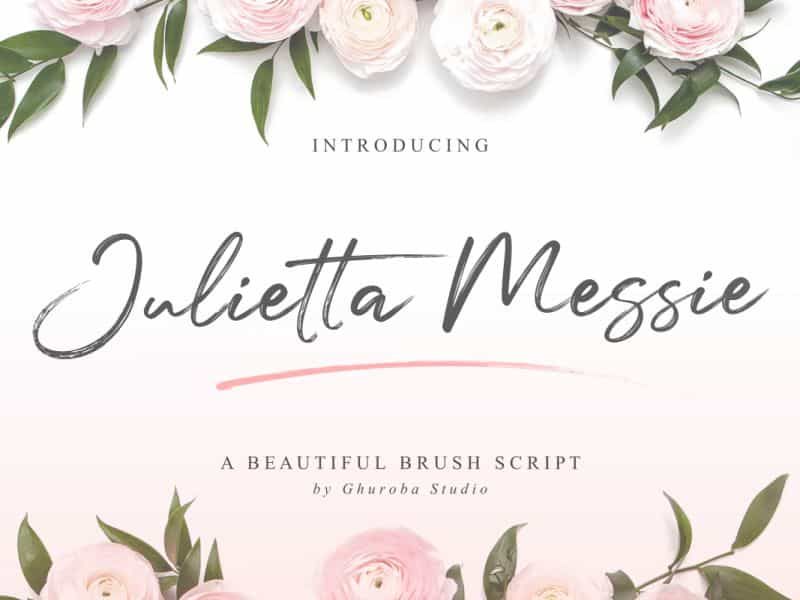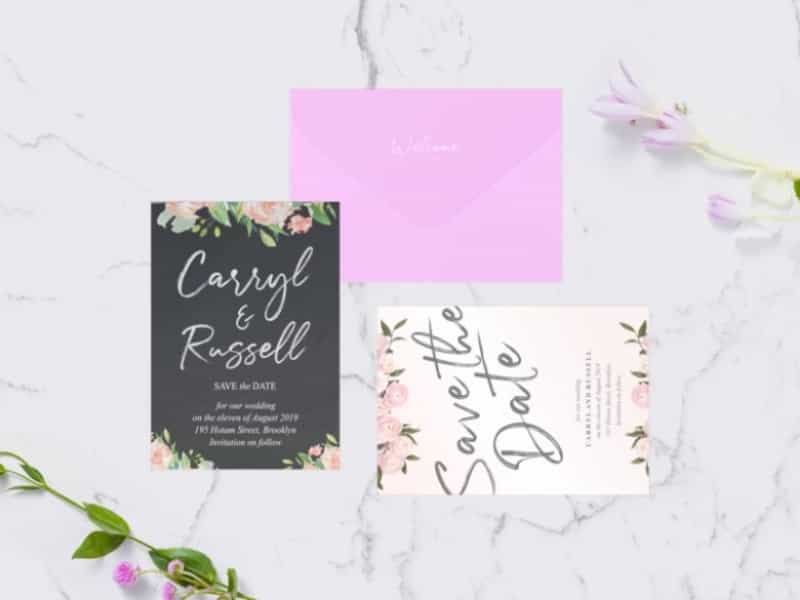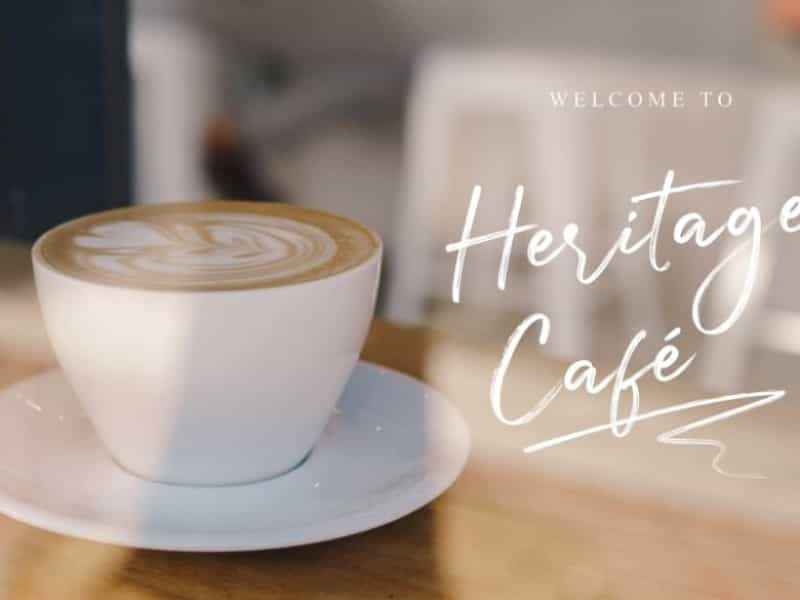
The Julietta Messie is a lovely brush font. The grace of this font is so refined, and it will be a great addition to your designs for giving them an upscale look. it is ideal for branding, wedding invitations, poster designs, business cards, newsletters, stationary , logos and packaging etc.